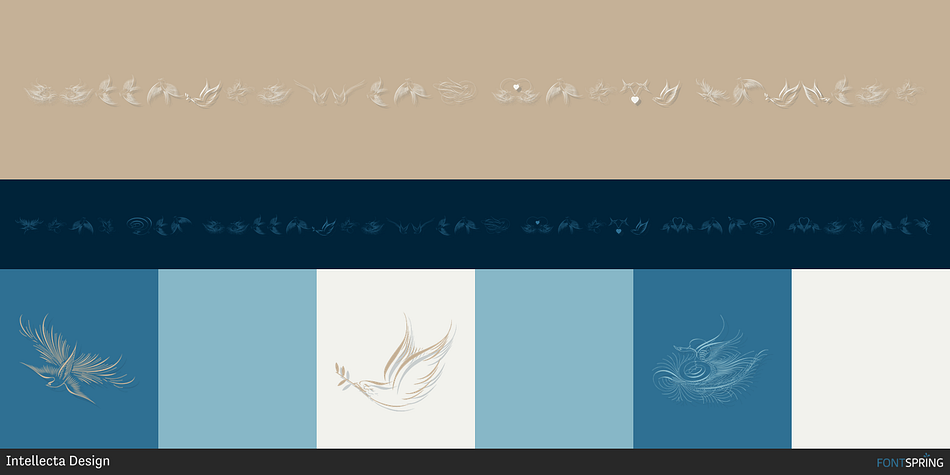
Calligraphic Birds
Designed by Paulo W, Calligraphic Birds is a dingbat font family. This typeface has two styles and was published by Intellecta Design.
Calligraphic Penmanship is pure penmanship!!! TWO SETS of beautiful birds !!!